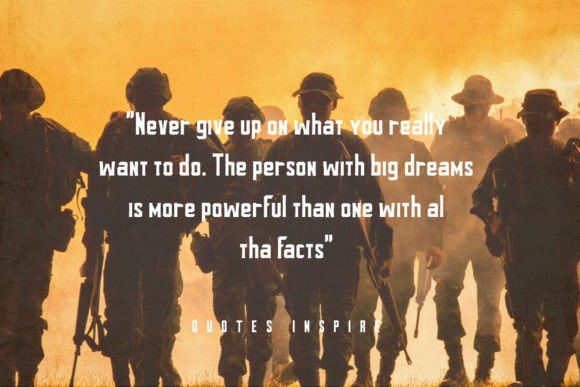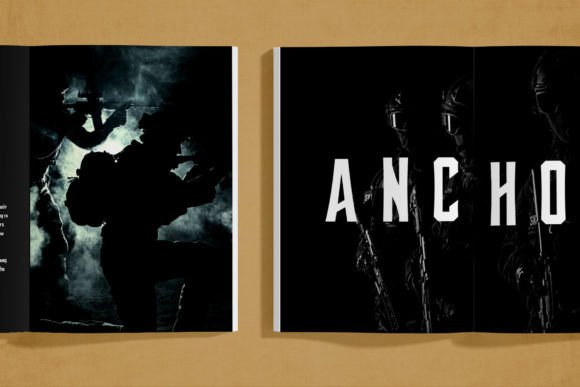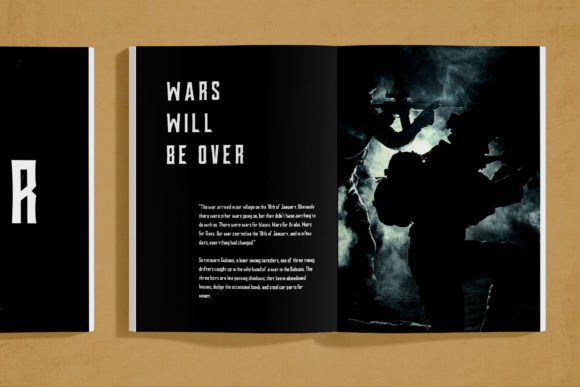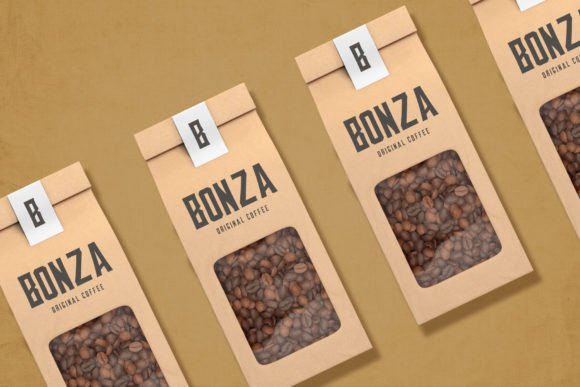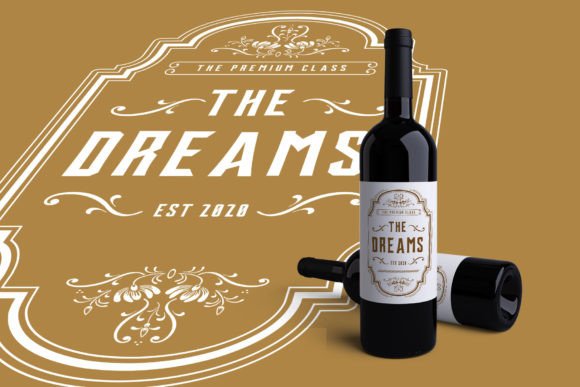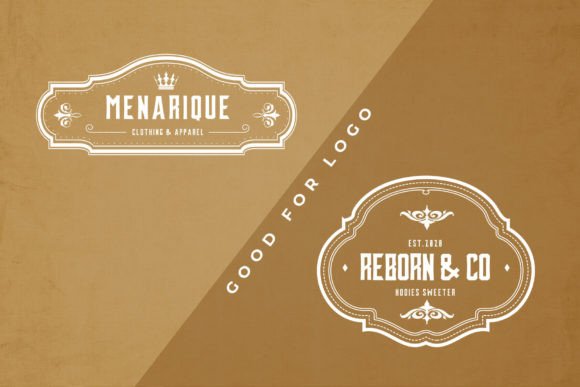
Introduction to Bathalion Font
Bathalion is a unique sans serif font.
Bathalion is perfect for logos, jerseys, posters, clothing, and much more This font has a unique style and easy visual readability, so itโs perfect for headlines, automotive posters, logos, or monogram designs.